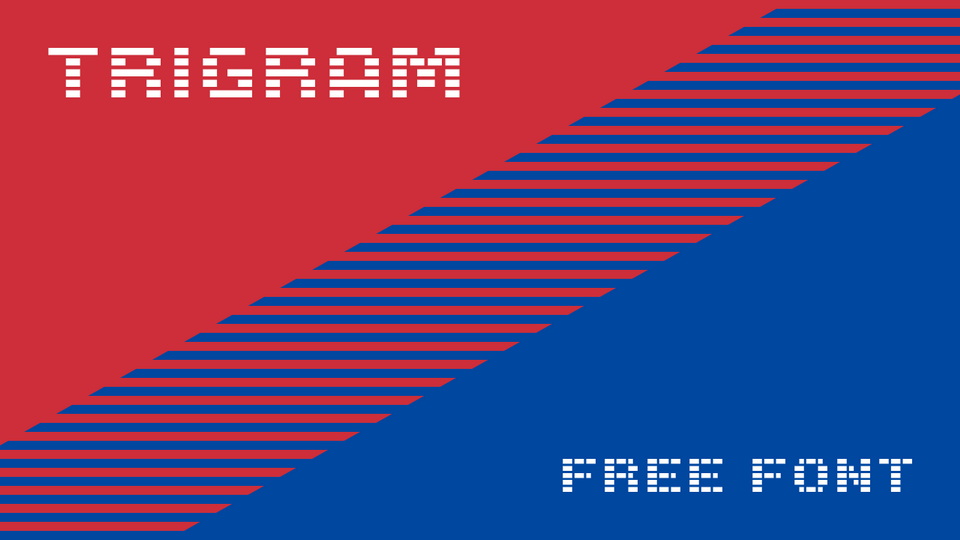
Download Trigram font, a striped display typeface based on a matrix structure and two types of grid resolution. With its old style digital look Trigram font is perfect for games, terminals, tech projects and any display use.